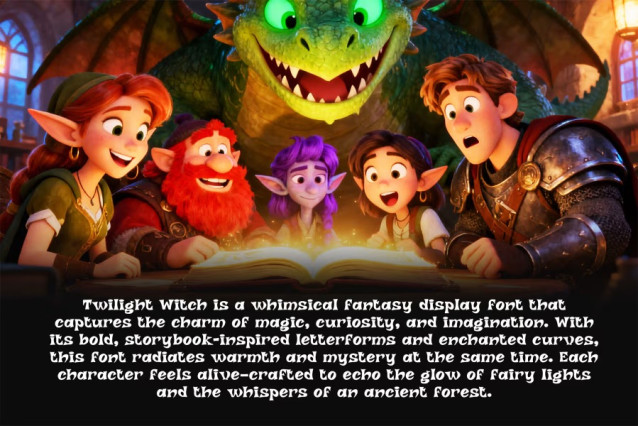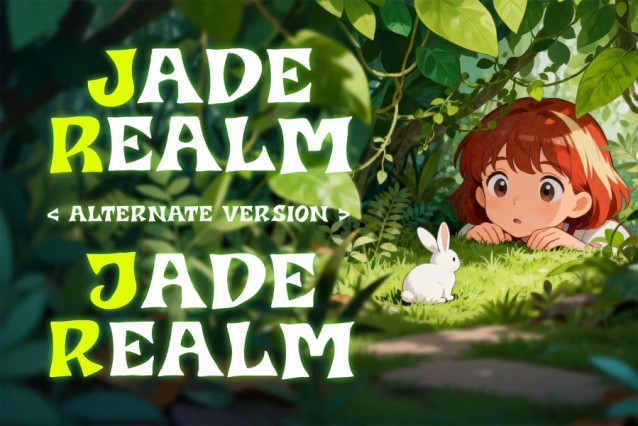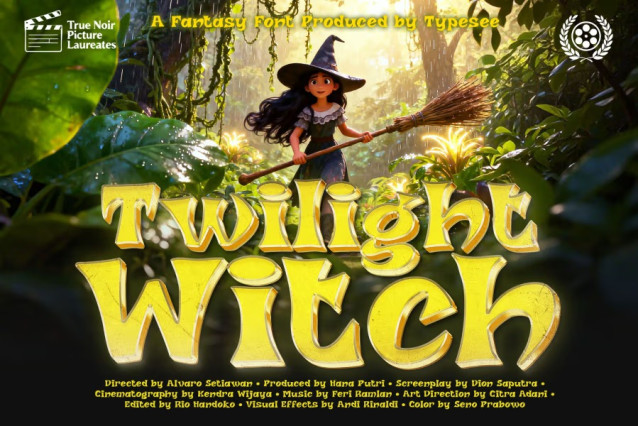
Twilight Witch Font
Twilight Witch Font is a fantasy display typeface designed with organic, hand-drawn contours that evoke the charm of classic storybook lettering. Its bold weight and slightly irregular shapes create a lively rhythm, adding depth and personality to titles, headers, posters, children’s books, game interfaces, and cinematic branding. The font blends playful curves with an enchanted visual tone, making it ideal for projects that aim to capture a sense of magic, adventure, and mystical atmosphere. Uppercase and lowercase sets are crafted for consistency while maintaining the whimsical character that defines the font’s identity.